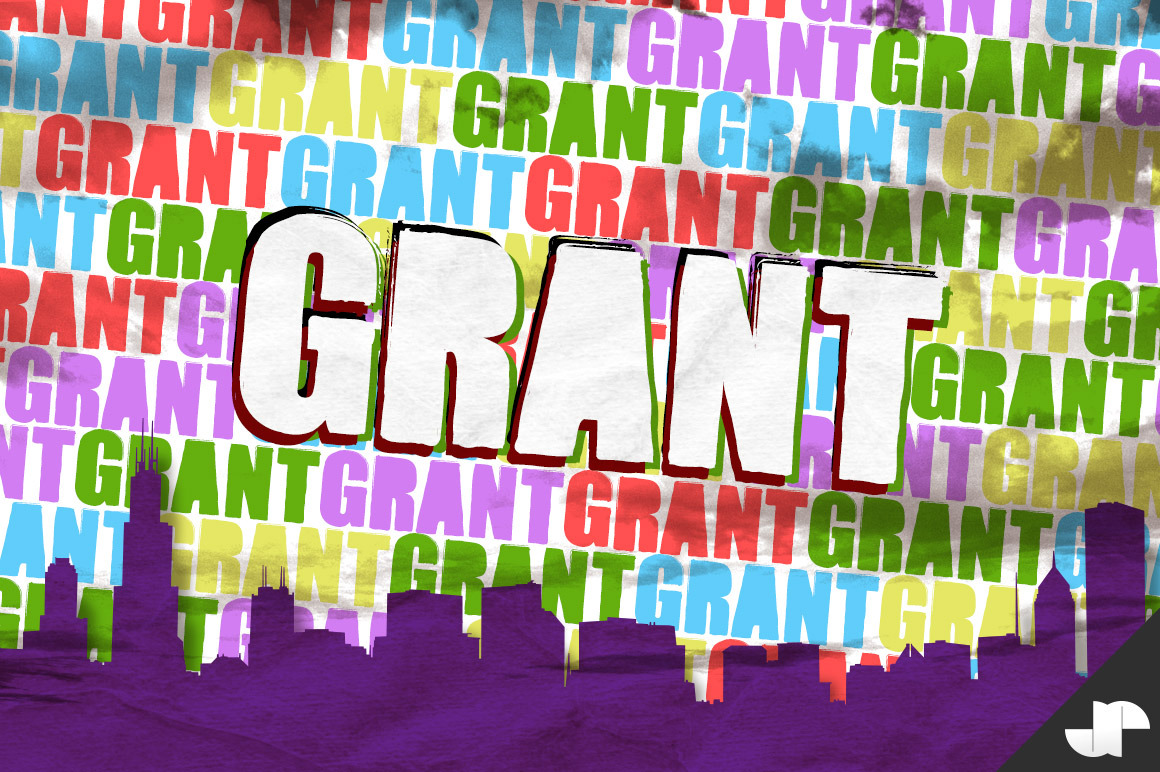
Grant - Grungy Stencil Font
GRANT was created for an album art project many many moons ago, and has been mostly hiding in my hard drive since then. It's a fairly basic grungy font that can easily be used for a stenciling effect.